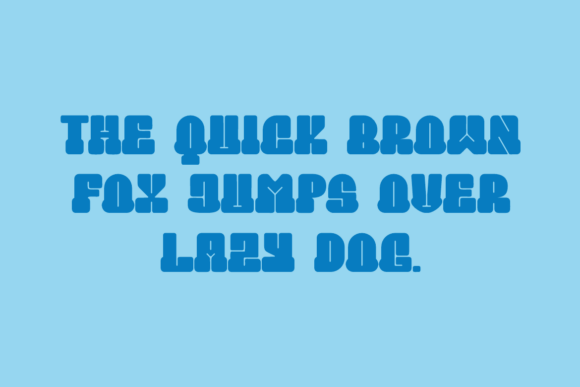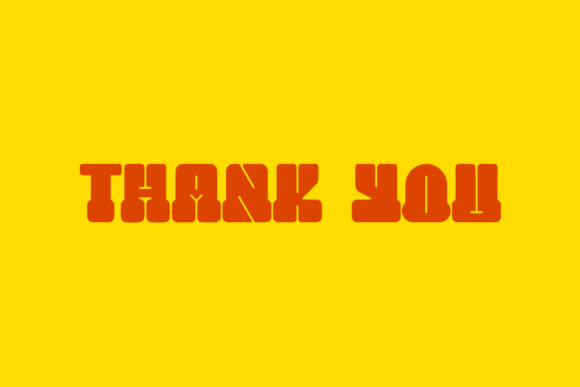
Introduction to Metric Badway Font Font
Fonts play a crucial role in design, and the Metric Badway Font font is a typeface that brings both character and versatility to any project. Whether you’re working on a branding project, a website, or a print design, the Metric Badway Font font offers a unique style that can elevate your work.
Metric Badway is a modern and vibrant display font that brings retro charm with a geometric twist.
With clean, blocky forms and fun vintage appeal, itβs perfect for creative branding, editorial layouts, packaging, and retro-inspired visuals .
Key Features of Metric Badway Font Font
Why Choose Metric Badway Font Font?
The Metric Badway Font font is more than just a typeface β it’s a design tool that helps you communicate your message with style and clarity. Its unique character set and versatile design make it suitable for a wide range of applications, from elegant invitations to bold headlines.
With its carefully crafted letterforms and balanced proportions, the Metric Badway Font font ensures readability and visual appeal across all mediums.
What makes Metric Badway Font font special?
The Metric Badway Font font stands out with its unique design, exceptional readability, and versatility across various design applications.